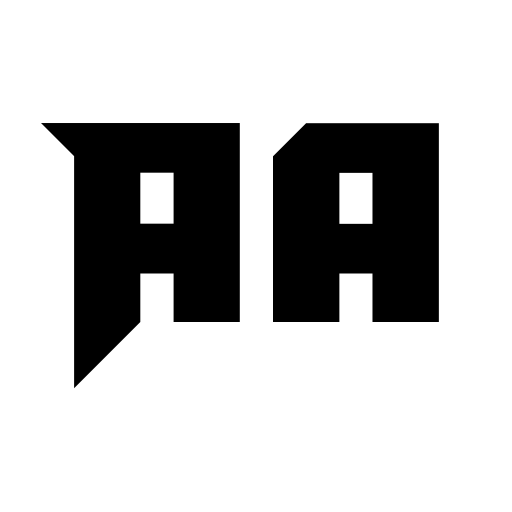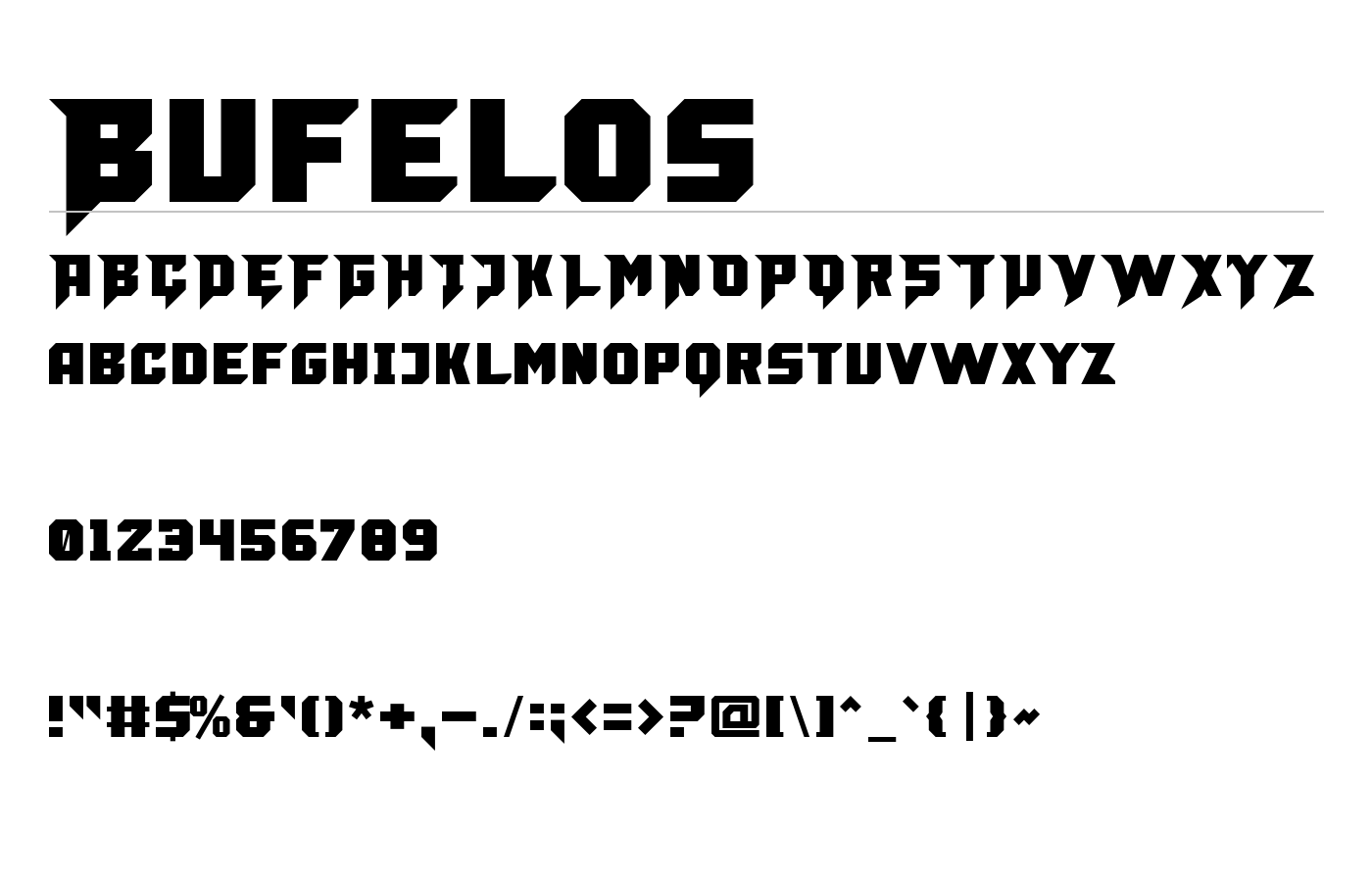
Bufelos is a bold, geometric sans serif font with a futuristic and edgy feel, characterized by sharp angles and blocky letterforms that create a strong visual impact. Its unique, almost industrial style makes it ideal for headlines, logos, and branding projects seeking a modern, powerful, and slightly aggressive personality. This font works particularly well in designs where a striking, standout appearance is desired, such as posters, sports branding, and creative tech ventures.
Bufelos Font
About Bufelos Font
| Font family | Bufelos Font |